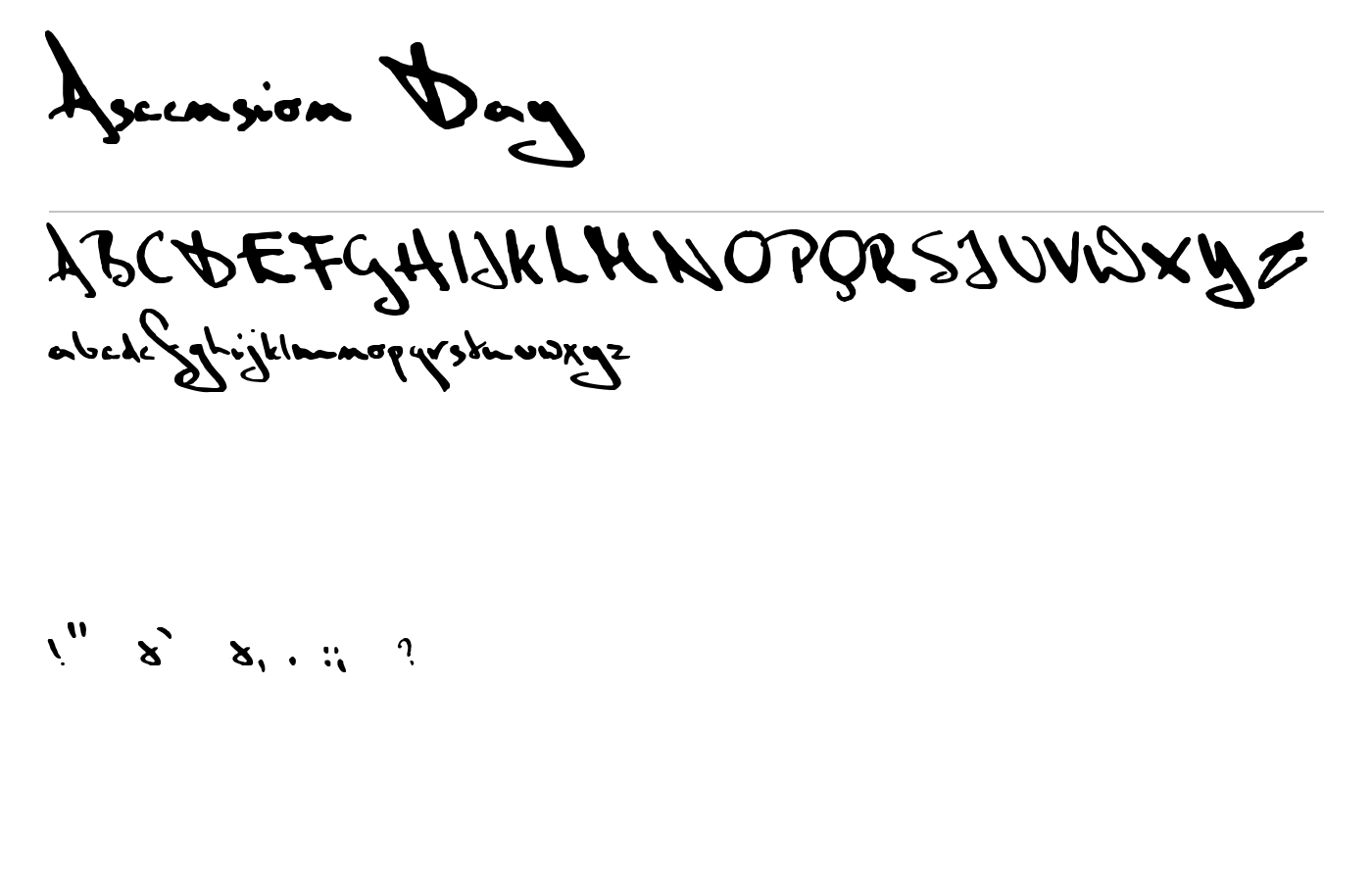
Ascension Day is a unique handwritten script font characterized by its irregular, expressive letterforms and flowing strokes that evoke a casual, artistic feel. With a playful yet slightly chaotic style, it captures an authentic, personal touch perfect for creative projects, informal branding, and artistic designs that seek a distinct, hand-crafted appearance. This font works well in headlines, logos, and invitations where individuality and personality are key.
Ascension Day Font
About Ascension Day Font